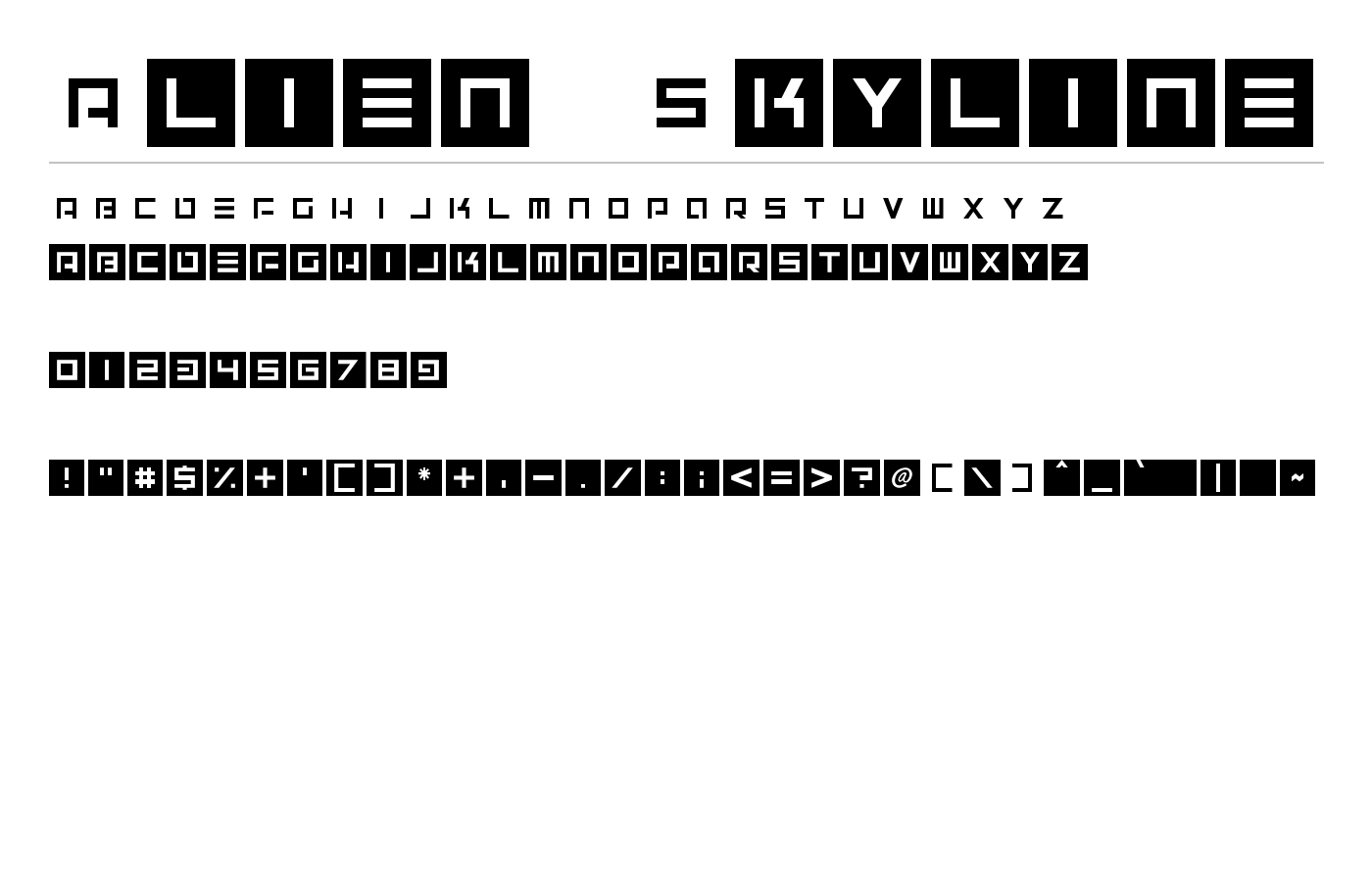
Alien Skyline is a bold, futuristic sans serif font characterized by its geometric, blocky shapes and high contrast of solid black and white spaces. Its distinctive square and angular letterforms evoke a sci-fi and tech-inspired vibe, making it ideal for eye-catching headlines, logos, and designs needing a modern, digital edge. This font works best in creative projects where a strong, unconventional look is desired.
Alien Skyline Font
About Alien Skyline Font